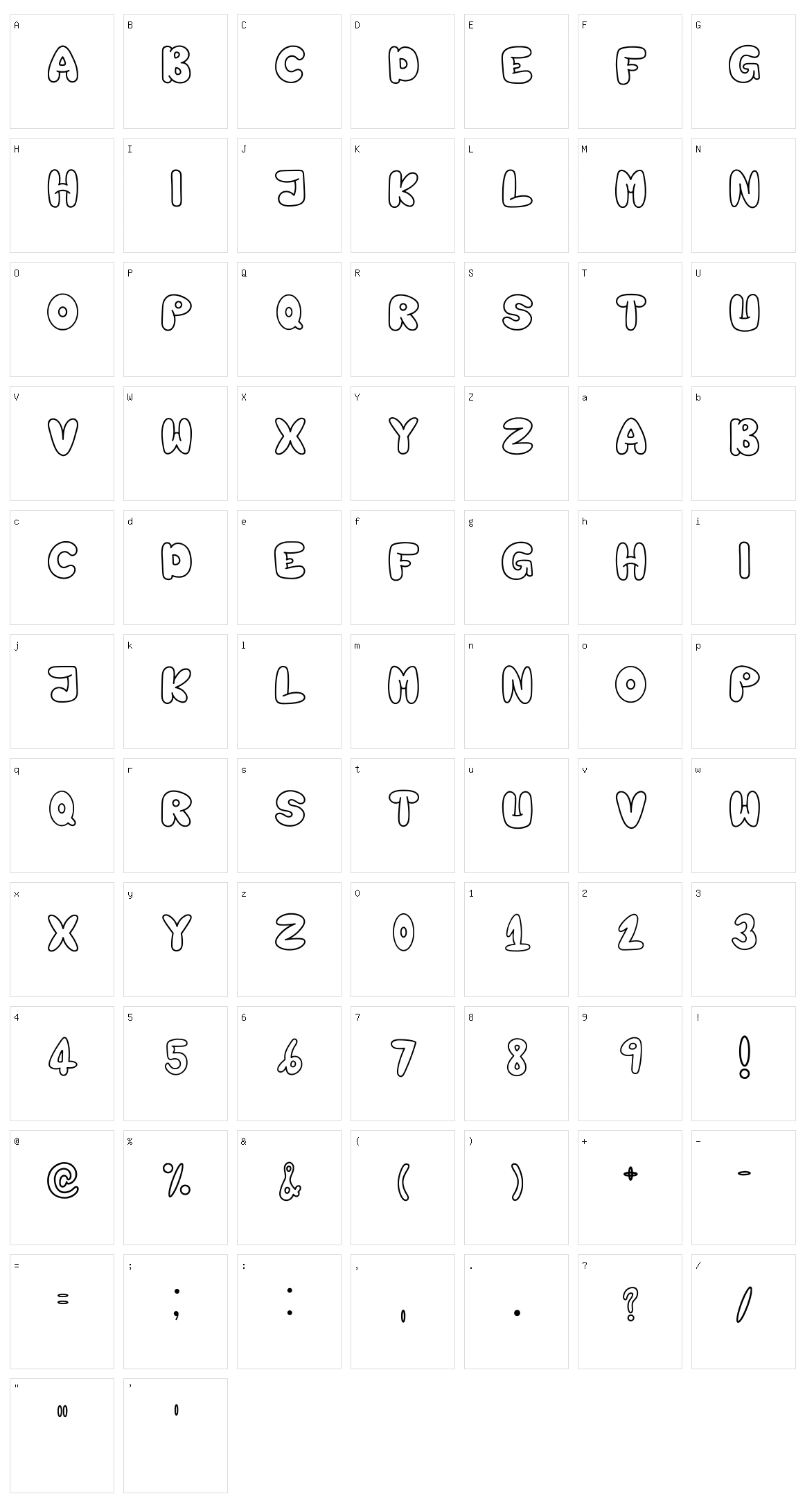
The free font Bubbledupp is carefully designed by Marina Sanders, showcasing a thoughtful balance of creativity and usability and falls under the Cartoon font style. When you download the ZIP file, it contains only 37.37 KB of font files, making it lightweight and quick to download. Please review the license details below to understand permitted usage and distribution rights. If license information is not available, we recommend using this font for personal projects only or contacting the author directly for commercial usage permissions.